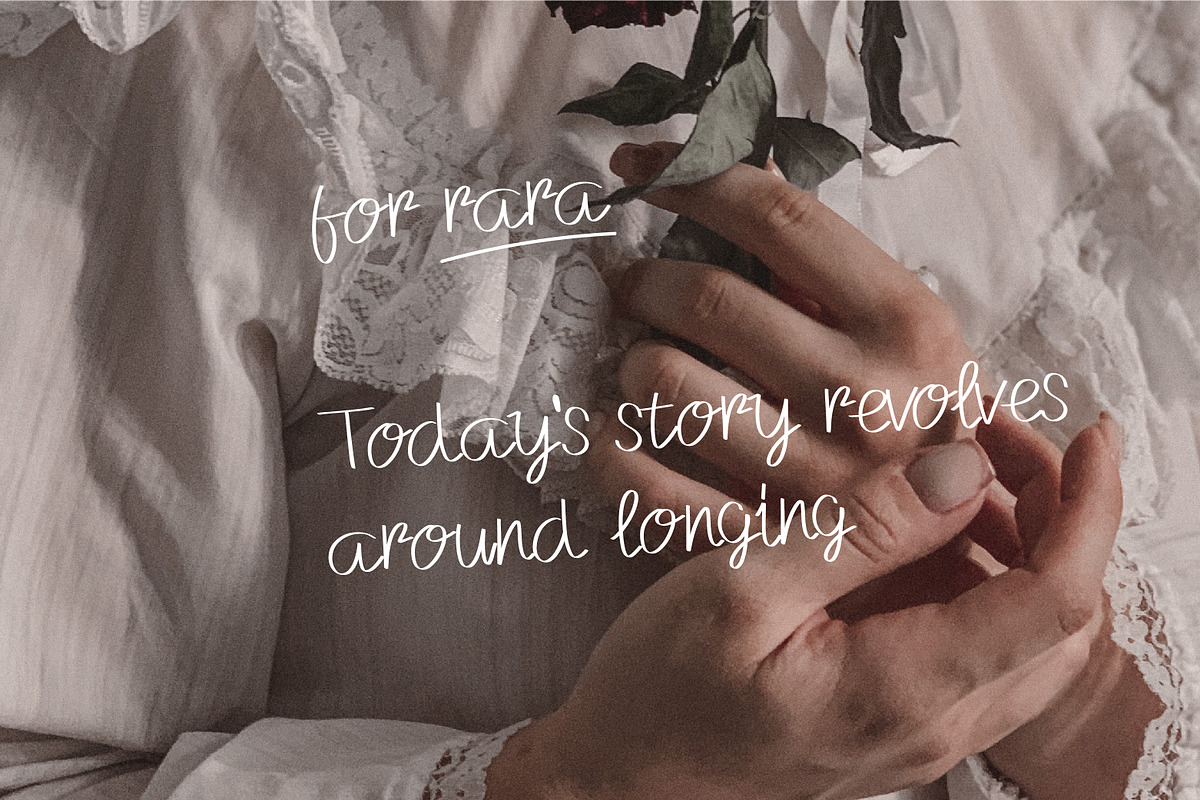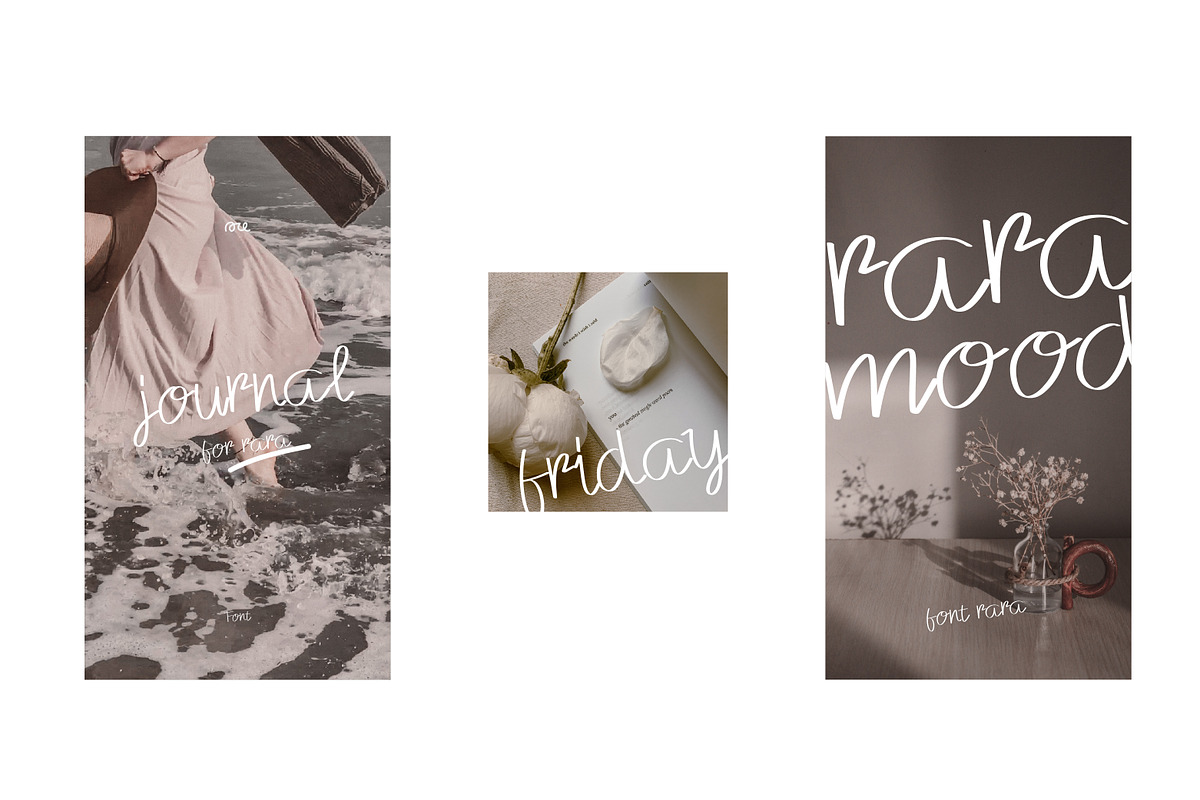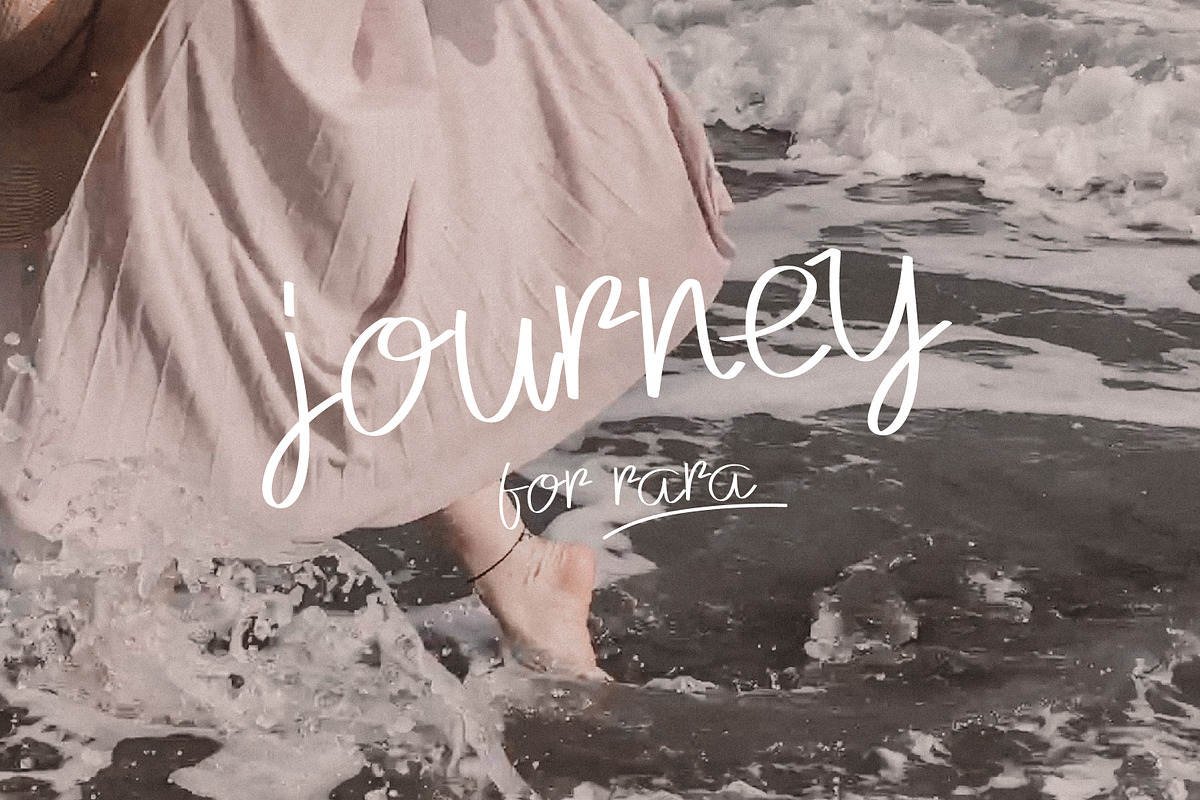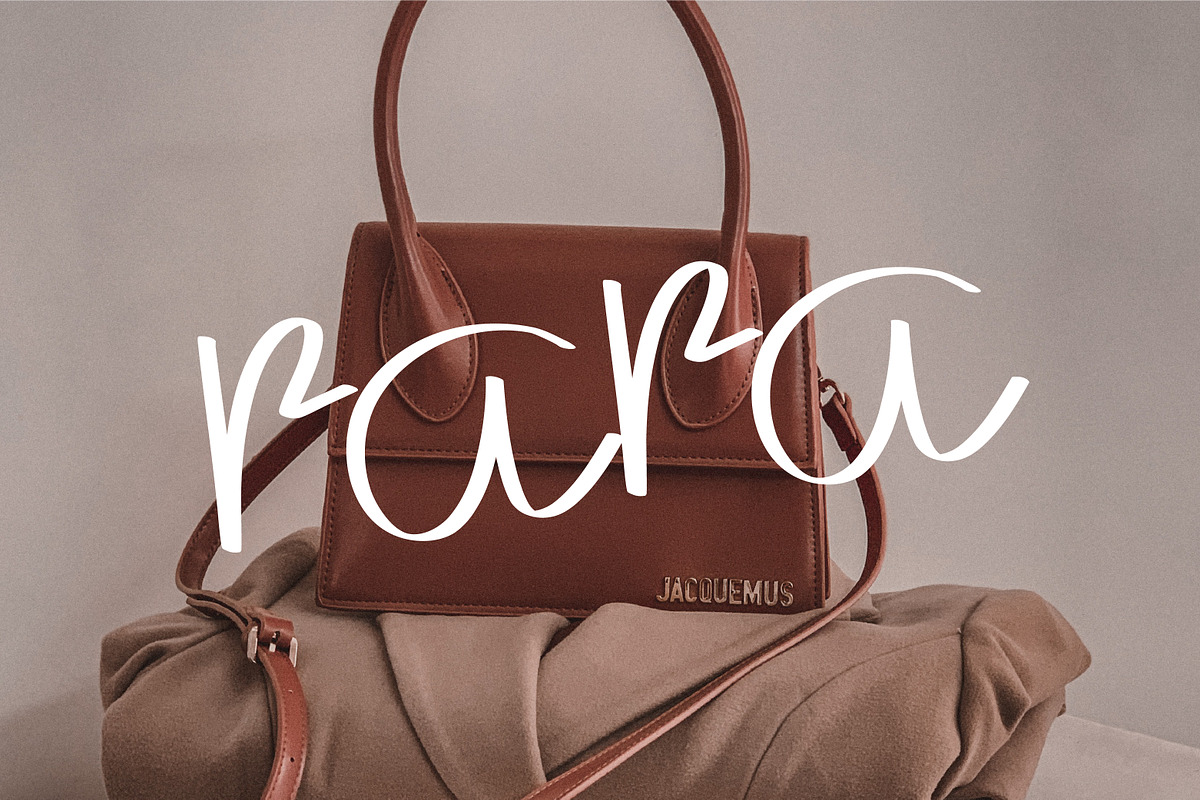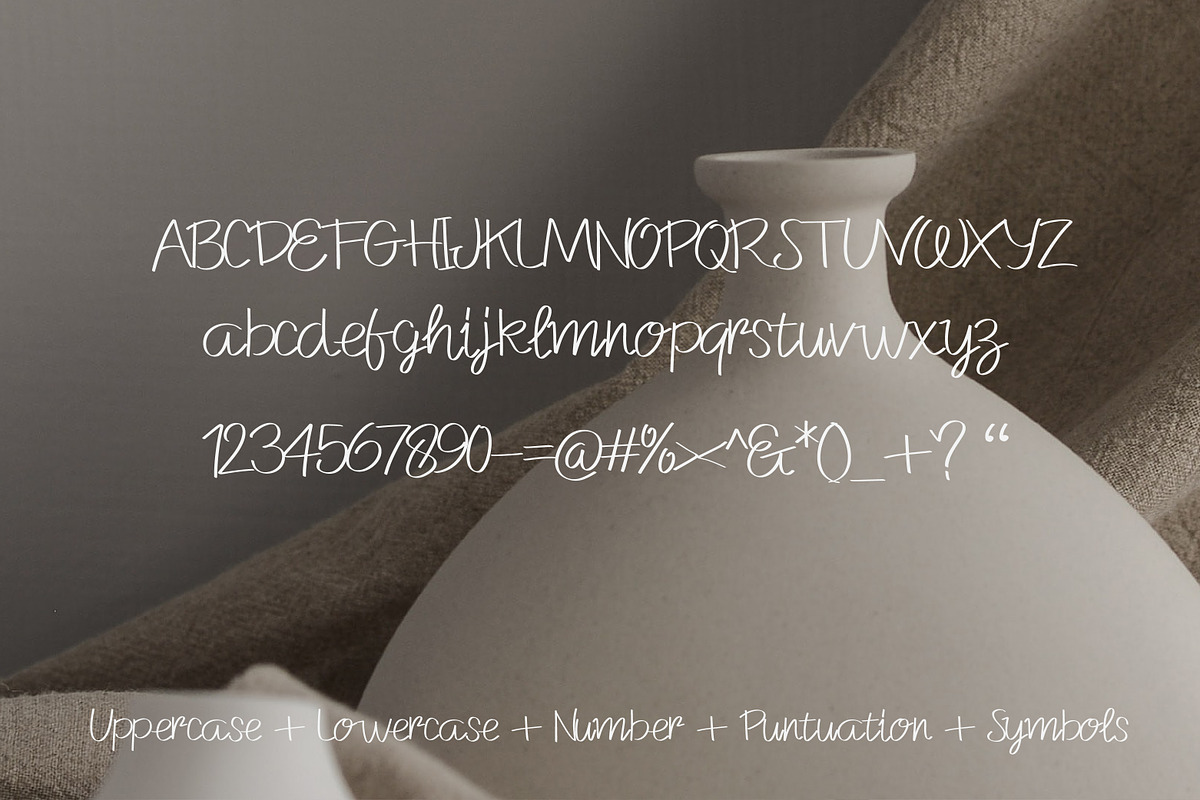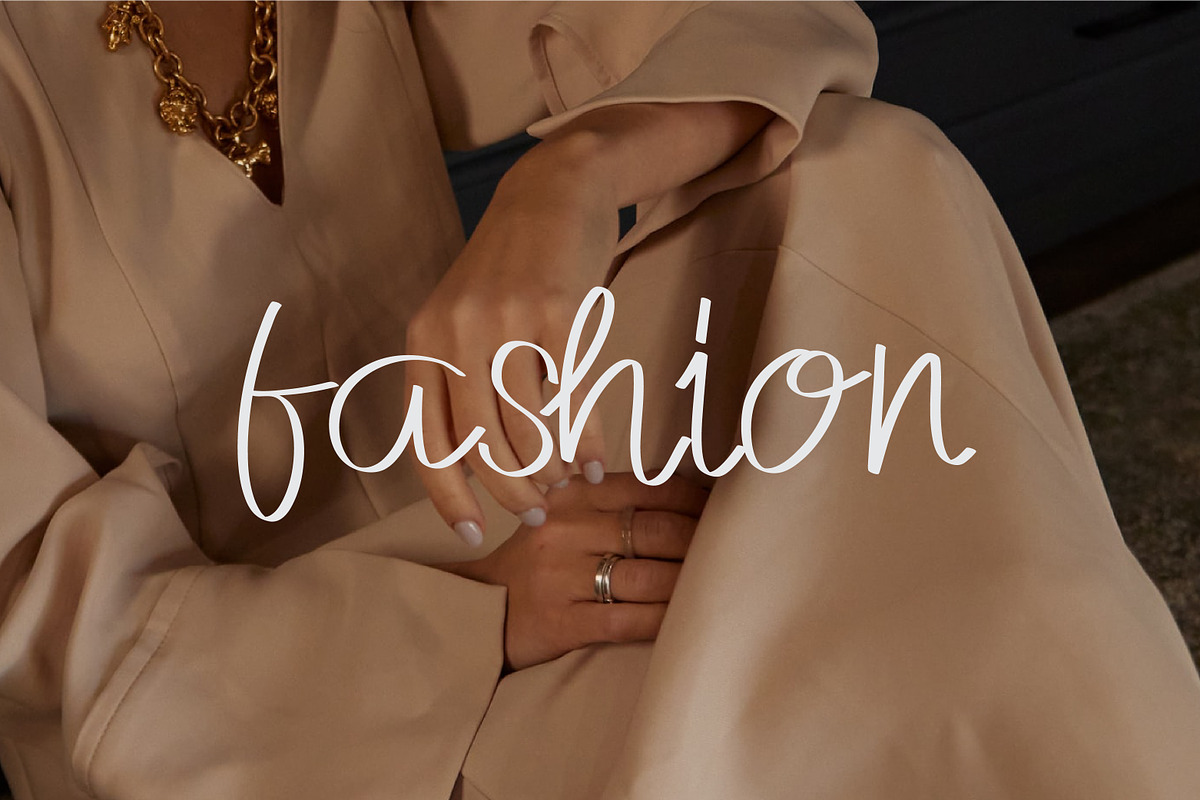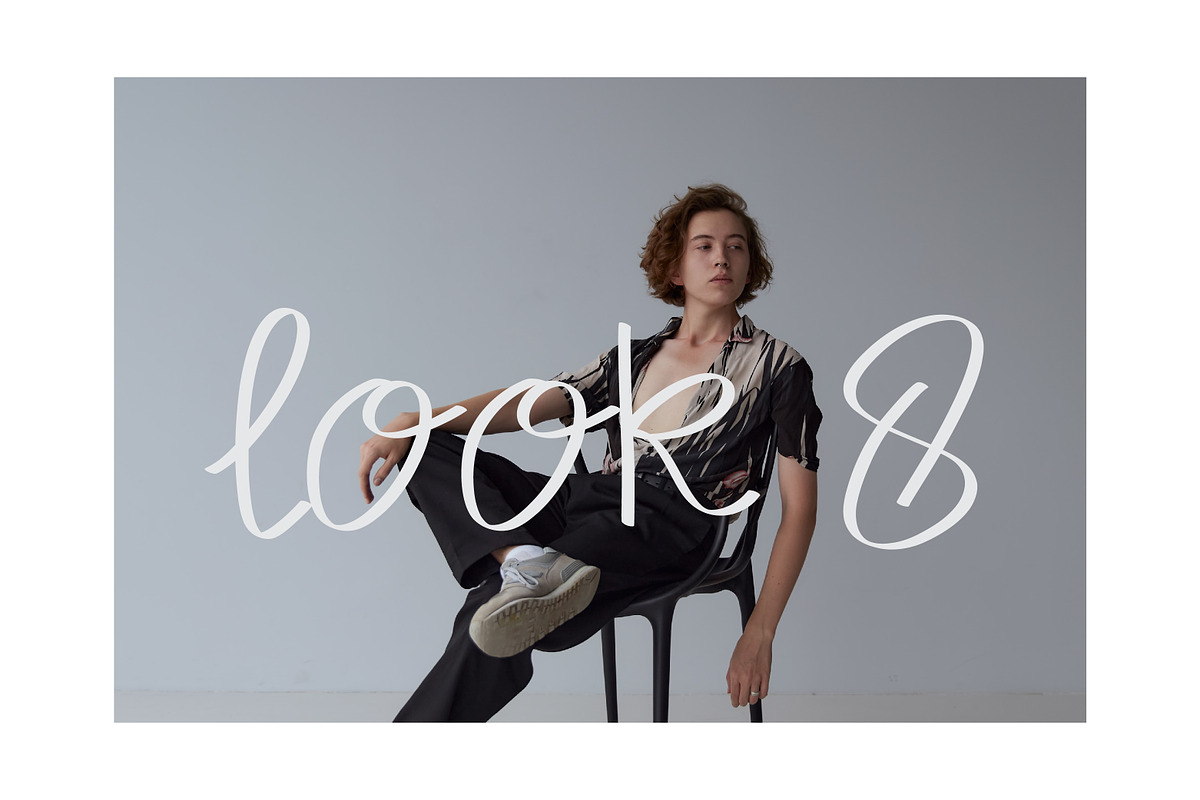
Rara - Display Font
Rara fonts are designed using emotional shapes to give a personal impression to your brand. Gives a classy character but has a personal mood style.
- This font comes with Uppercase, Lowercase, Numbers, Punctuation, and Symbols.